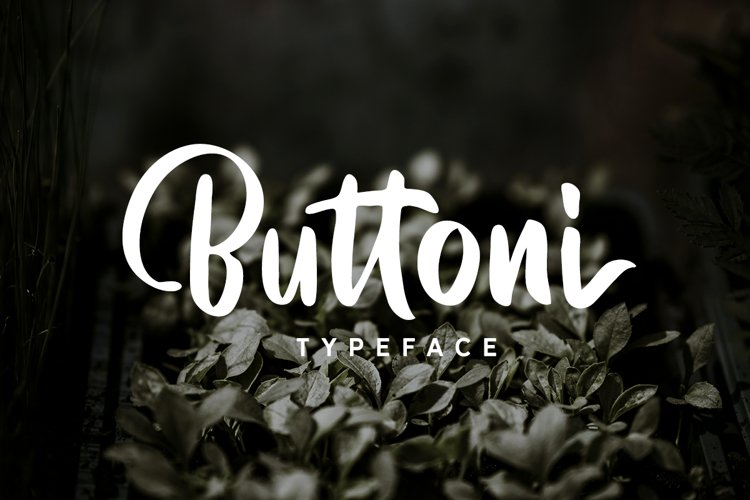
Retro and Vintage Bundle
This is a Mini-Bundle of our Retro and Vintage Fonts that consist of 18 Retro and Vintage fonts and perfectly fit for your projects such as logo design, poster, branding, invitation, packaging, apparel, etc. This Mini-Bundle is limited only so get it while it last
• Alburgone
• Brown Chunkers
• The Padlock
• Fragtude
• Kandani
• Yorkson
• Mandatory
• The Bayland
• Achiever
• Ramdone